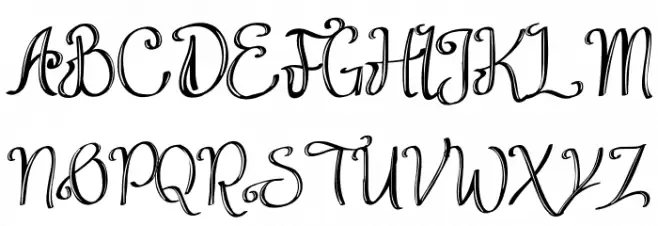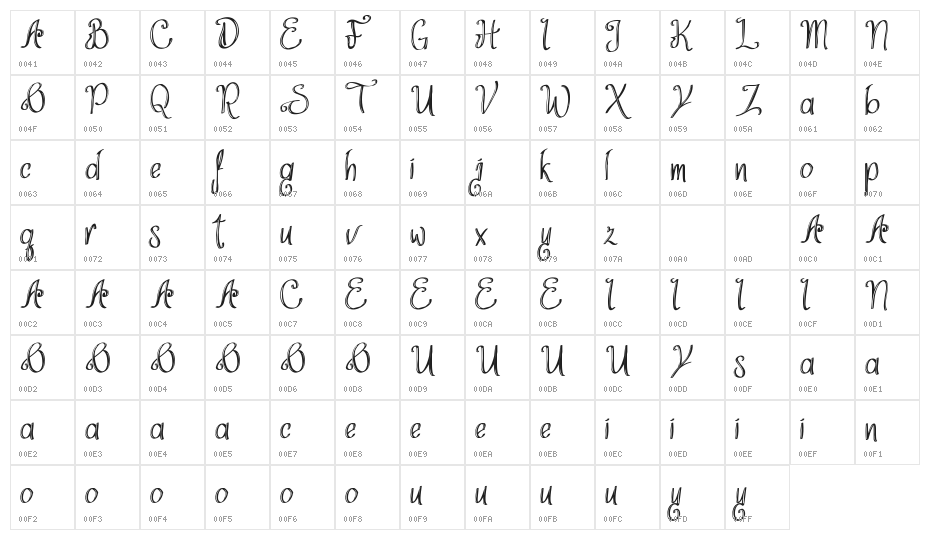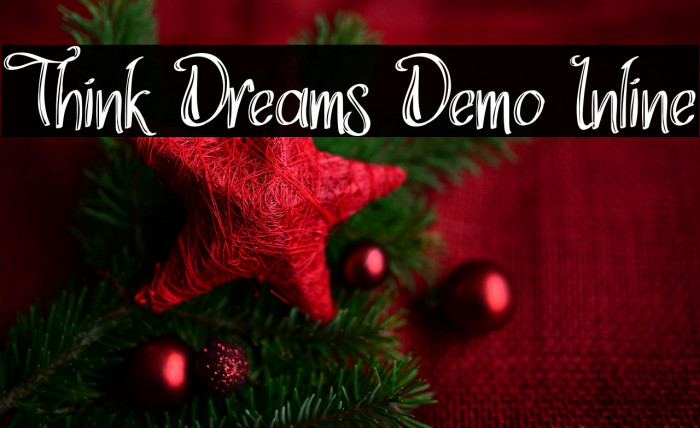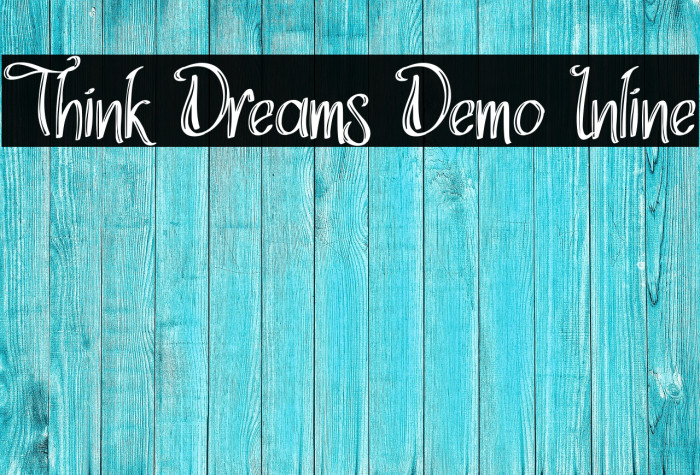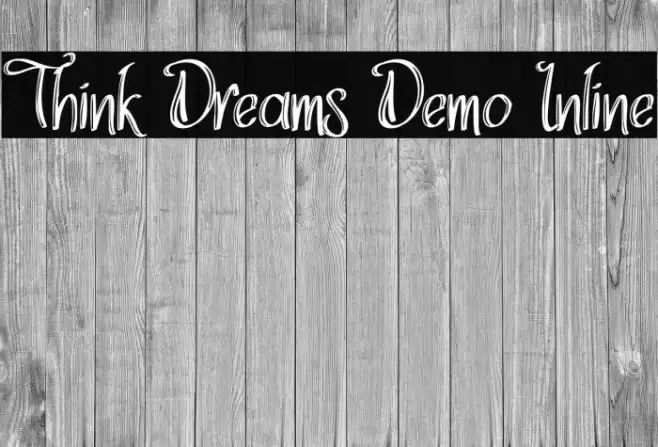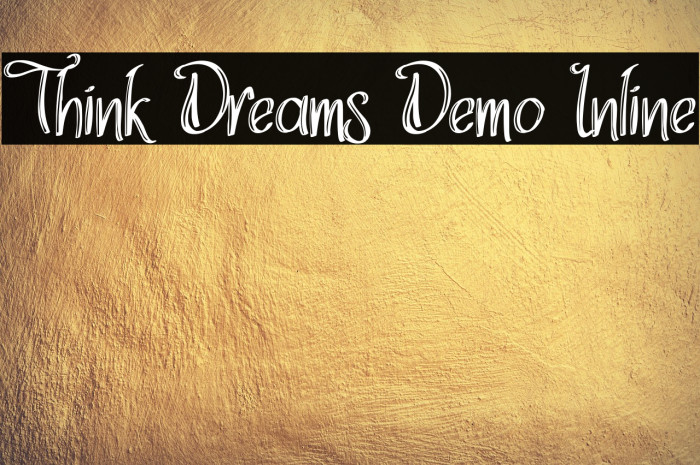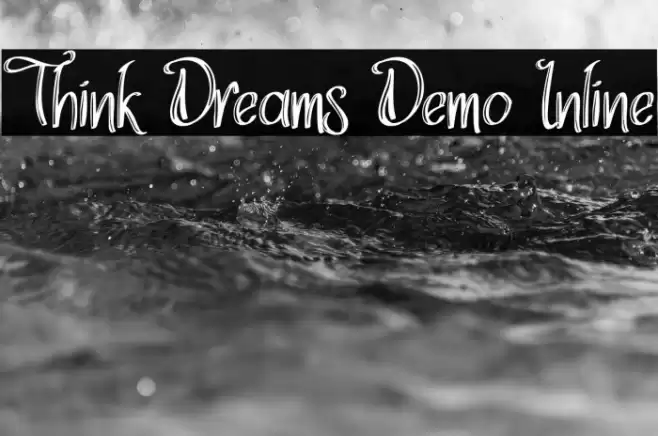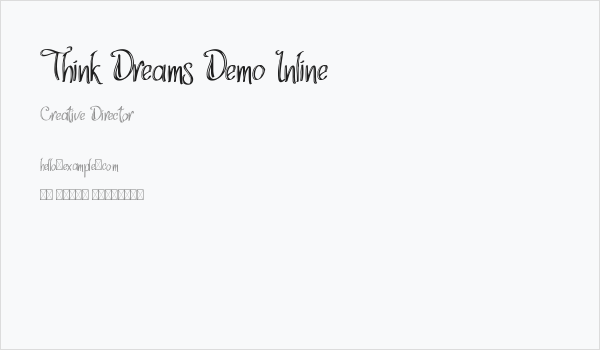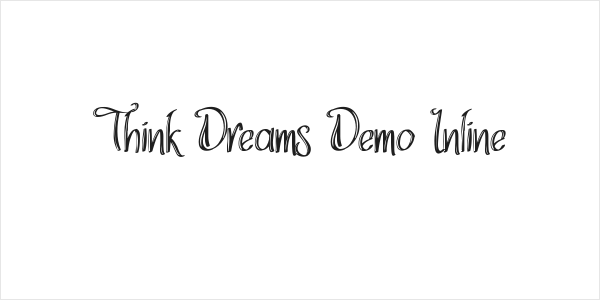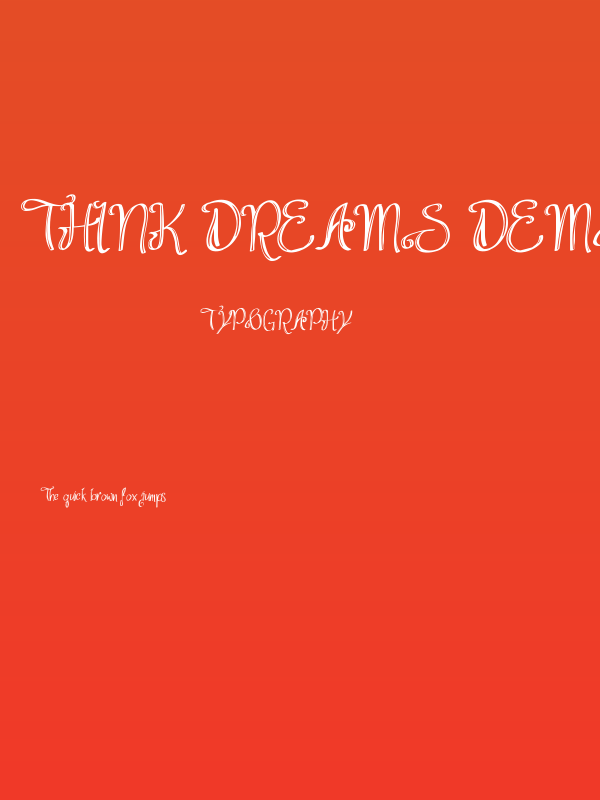
Think Dreams Demo Inline Font
Think Dreams Demo Inline Description
This font features an elegant and artistic script style, characterized by its flowing, cursive letterforms. The uppercase letters exhibit a graceful, sweeping design with intricate loops and curves, creating a sense of movement and sophistication. The lowercase letters maintain a consistent style, with smooth connections and a slightly playful touch. The numbers and special characters are designed to match the overall aesthetic, ensuring a cohesive look. This font's unique style makes it stand out, offering a blend of traditional calligraphy with a modern twist.